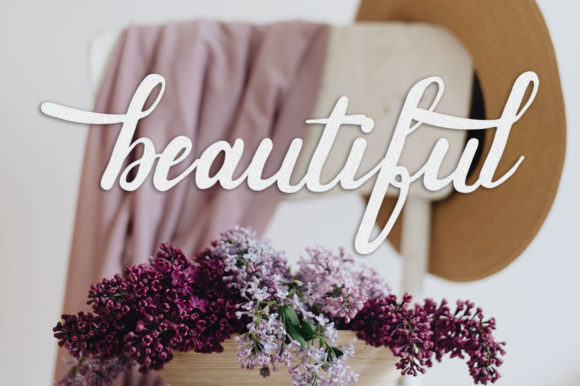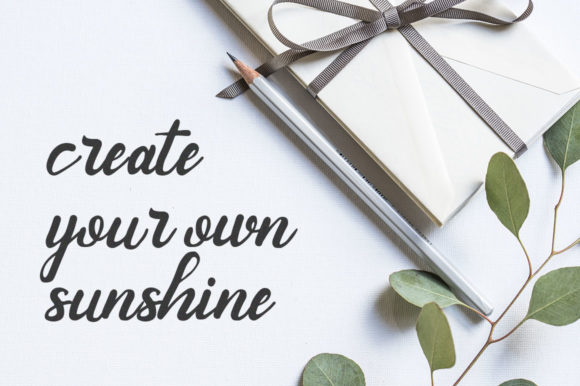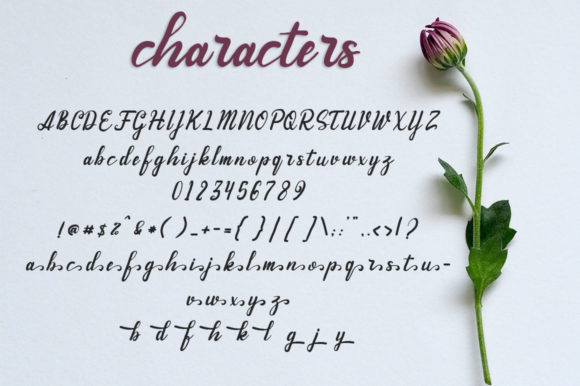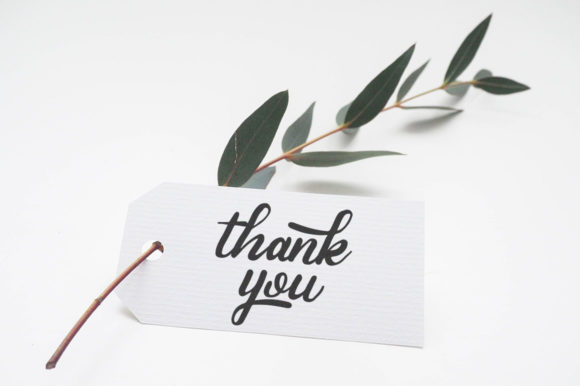
Introduction to Andhewi Font
Remember the moment when a design concept comes alive, and everything falls into place? It’s that instant when the right font can elevate your creative project from ordinary to extraordinary. For designers, finding the perfect font can be a game-changer. And that’s exactly what the Andhewi Font offers – a delicate, elegant, and flowing handwritten font that brings a touch of sophistication to any design.
With its beautiful and well-balanced characters, the Andhewi Font is a versatile design resource that matches a wide range of designs, from transparent backgrounds to high-quality prints. And the best part? It’s PUA encoded, making it easy to access all the glyphs and swashes you need to take your design to the next level. Whether you’re working on a free download or a commercial project, this font is sure to be a valuable addition to your design toolkit.
Key Features of Andhewi Font
- Unique and creative design ideal for various creative projects
- High-quality font with transparent background, perfect for use on any design resource
- Includes multiple font sizes and resolutions for optimal use in different design contexts
- Supports multiple languages and is suitable for use in various design applications
Honest Review: Andhewi Font
As a designer, I’ve had the opportunity to work with a wide range of fonts, but Andhewi Font stands out in its own way. This font is a design resource that offers a unique blend of style and versatility, making it a great addition to any creative project.
What I love about Andhewi Font is its high quality and detailed design. The font features a beautiful script style that adds a touch of elegance to any text. It also works well for both digital and print applications, making it a great choice for designers who need a versatile font.
- Unique and elegant script style
- High-quality design with detailed details
- Works well for both digital and print applications
- No transparent background option available
- May not be suitable for very large text sizes
Overall, I’m really impressed with Andhewi Font. It’s a great addition to any design library, and its unique style makes it stand out from more traditional fonts. If you’re looking for a high-quality font for your next creative project, I highly recommend giving Andhewi Font a try.
Getting the Most Out of Andhewi Font
To get the most out of the Andhewi Font, consider the following tips: use it in a creative project that requires a unique and eye-catching design, pair it with a transparent background to make the text stand out, and experiment with different font sizes and colors to find the perfect combination.
The Andhewi Font is a versatile design resource that can be used in a variety of creative projects, including: branding and marketing materials, social media graphics, and presentations. Its high-quality design makes it perfect for use in free downloads and design resources, and its transparent background makes it easy to use in combination with other design elements.